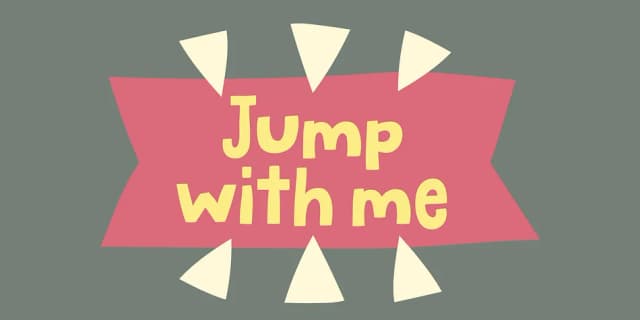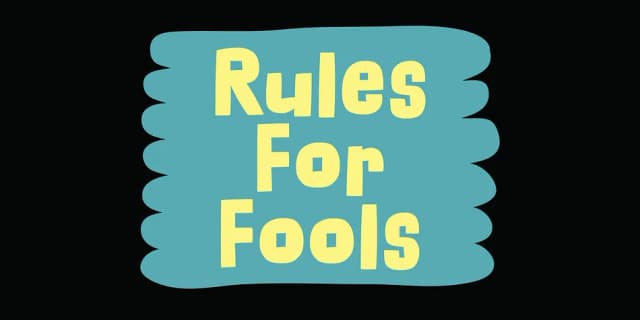
1 / 8About Break of day Font
Break of day by Bogstav is a playful decorative sans with an intentionally sketchy, hand-drawn feel that avoids feeling crude or unfinished. The letterforms carry a warm, organic wobble and deliberate irregularity that reads as thoughtful handmade craft without sacrificing legibility or function. When you need strong character and personality without reading as amateurish, this font delivers.
The doodled energy works especially well for children's storybook and picture book covers, handcrafted packaging labels for natural beauty and organic skincare lines, indie art and craft labels for small-batch creators, and informal event invitations that prioritize warmth over formality. Uneven baselines and variable stroke weight give everything a distinctly made-by-hand quality that resonates deeply with audiences seeking authenticity and genuine creativity rather than corporate slickness.
Break of day comes in three distinct styles: Regular, Inside, and Outline. Layering them together creates compelling dimensional effects and visual texture, letting you add depth and interest without needing to license another typeface entirely. The styles mix and match beautifully for sophisticated layered compositions. If you're ready to bring this kind of genuine, organic warmth to your creative work, you'll find Break of day waiting for you on Creative Fabrica.
Break of day Font is a decorative font that shines as a display or heading face. Pair it with a clean sans-serif or serif font for body text β the contrast creates a clear hierarchy while the two styles stay balanced and easy to read.
Break of day Font
by Bogstav